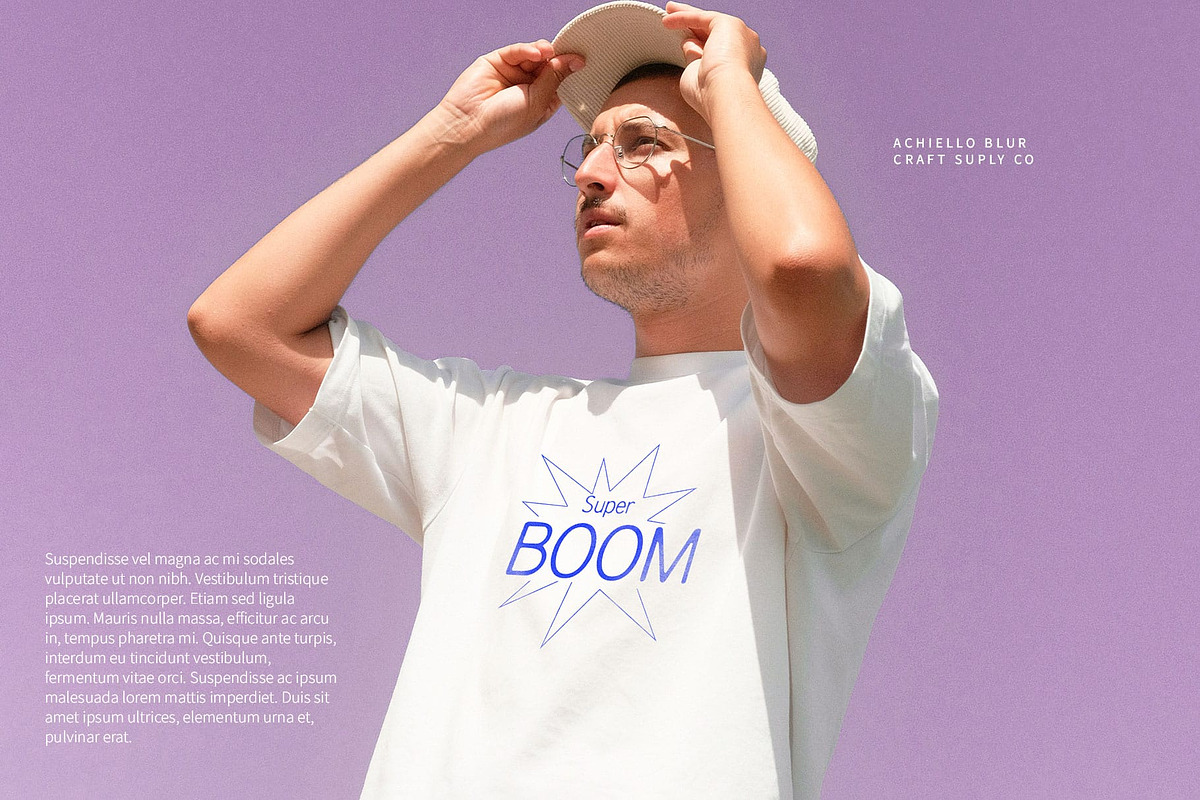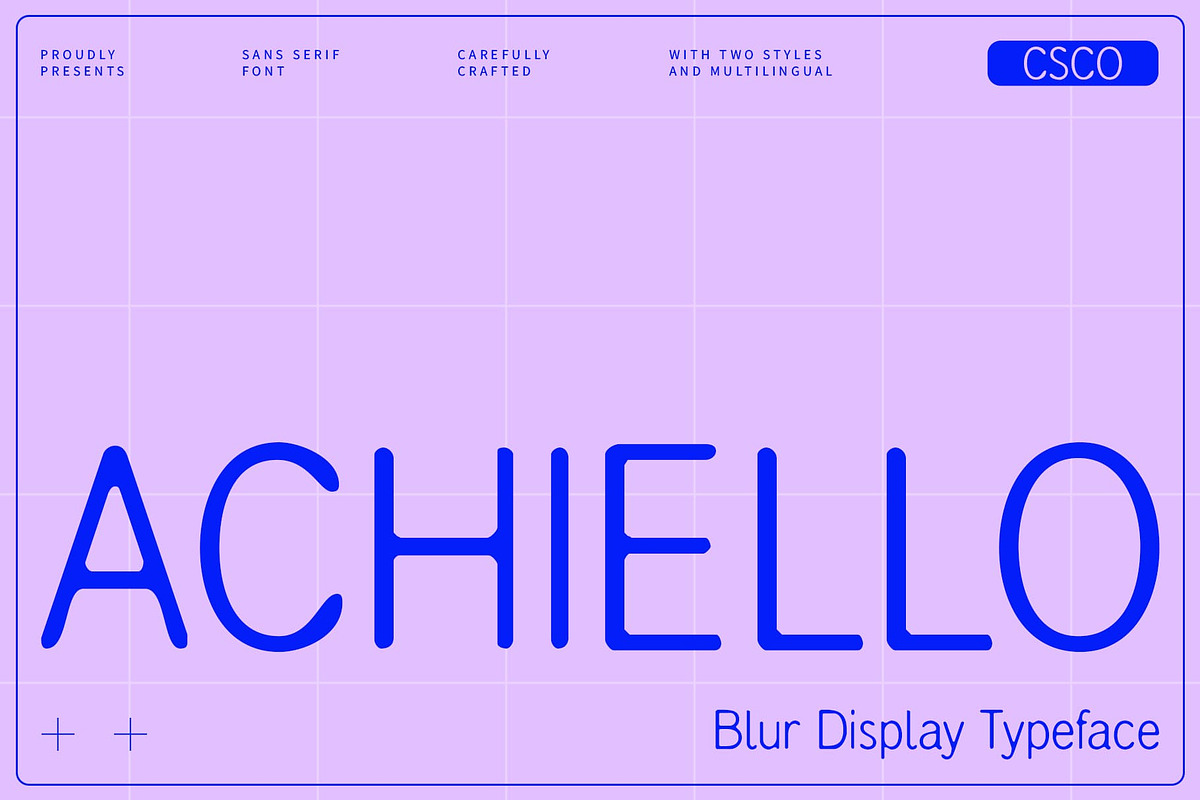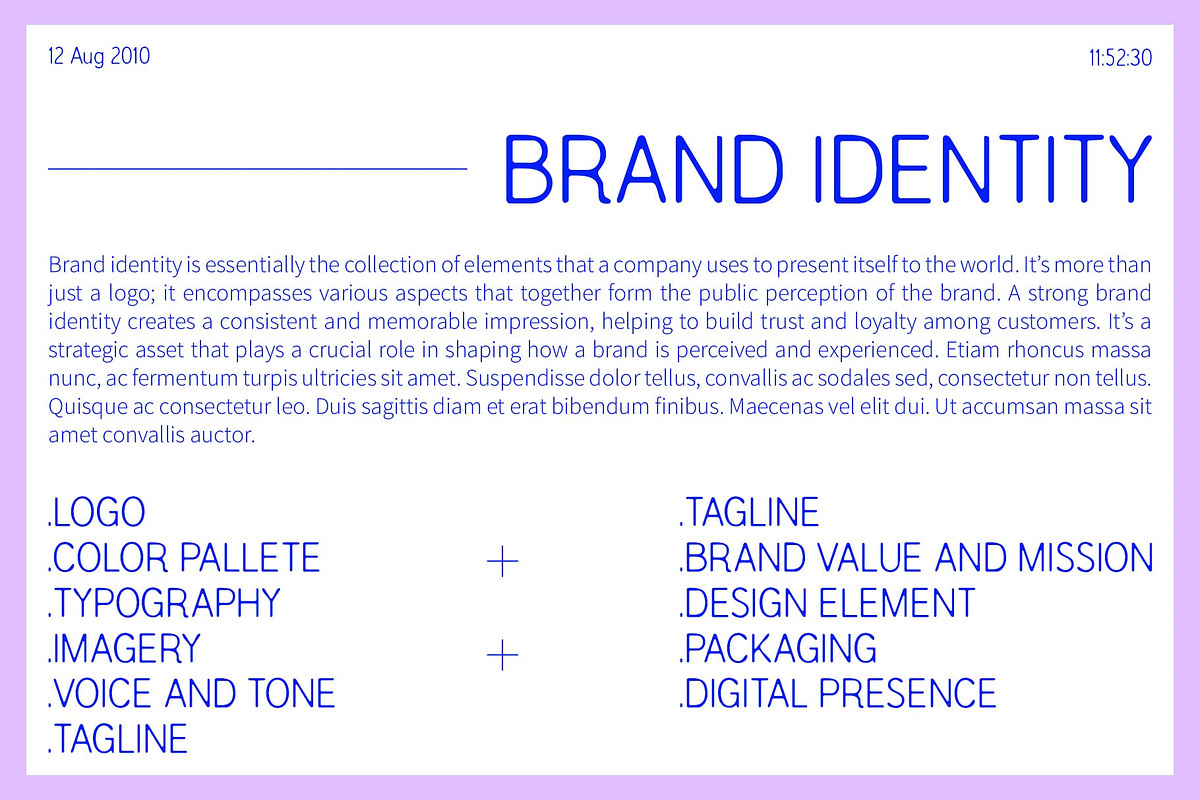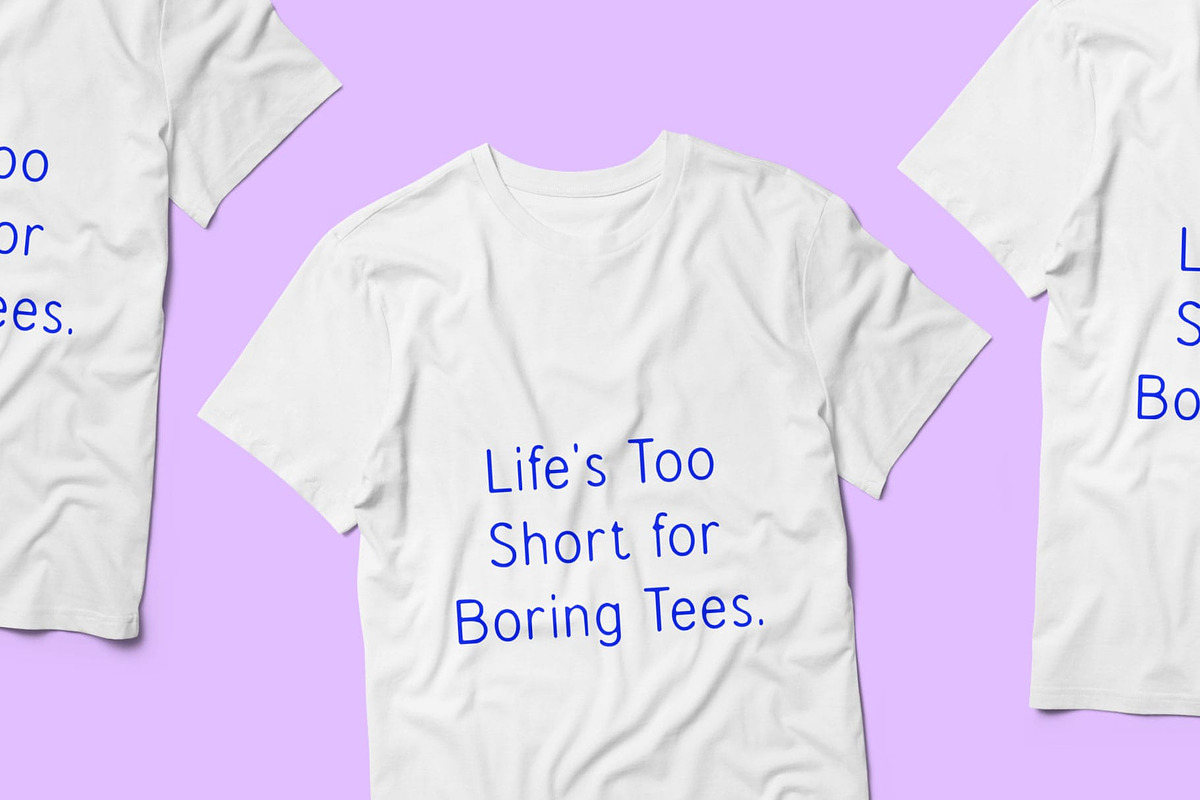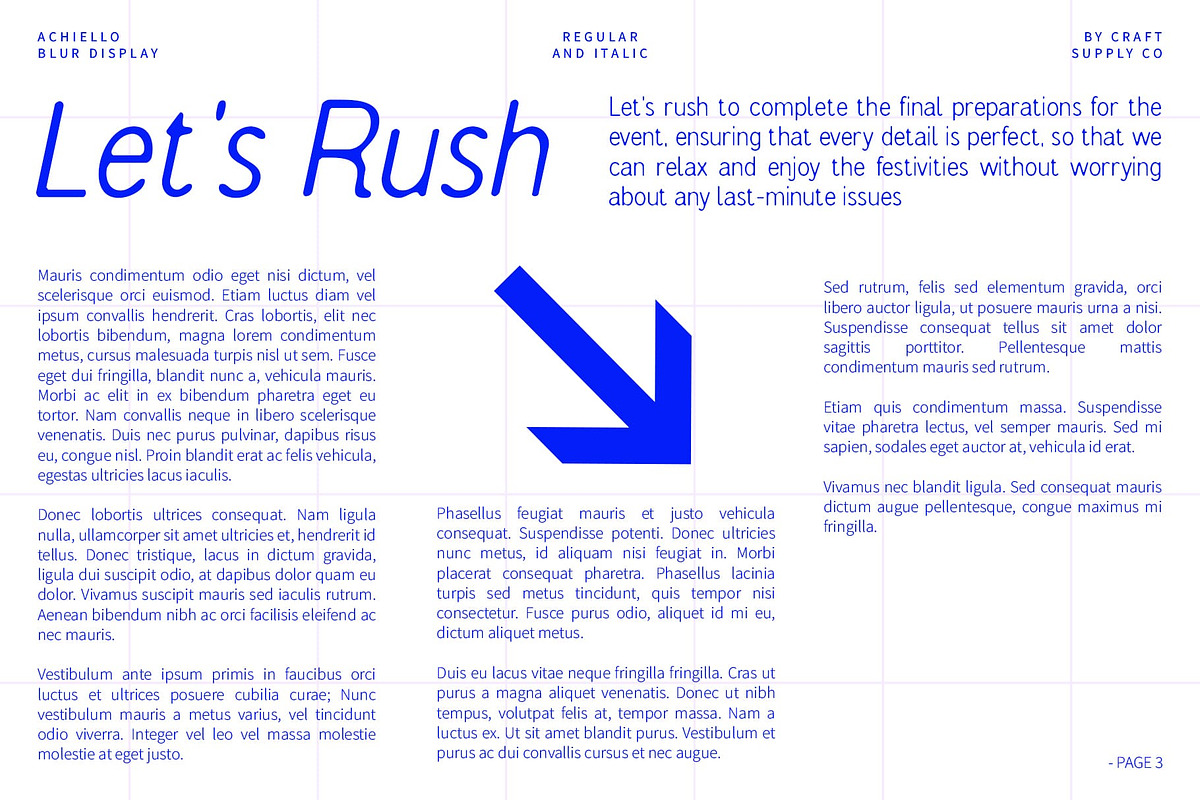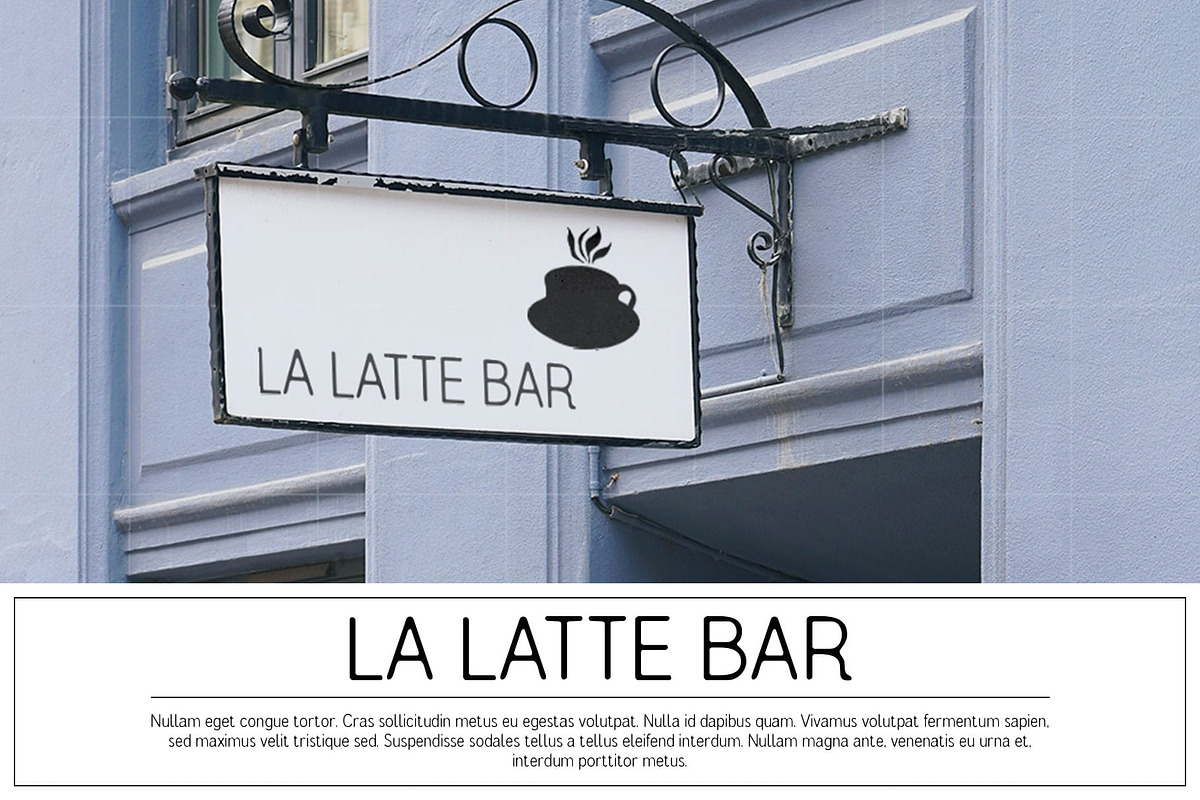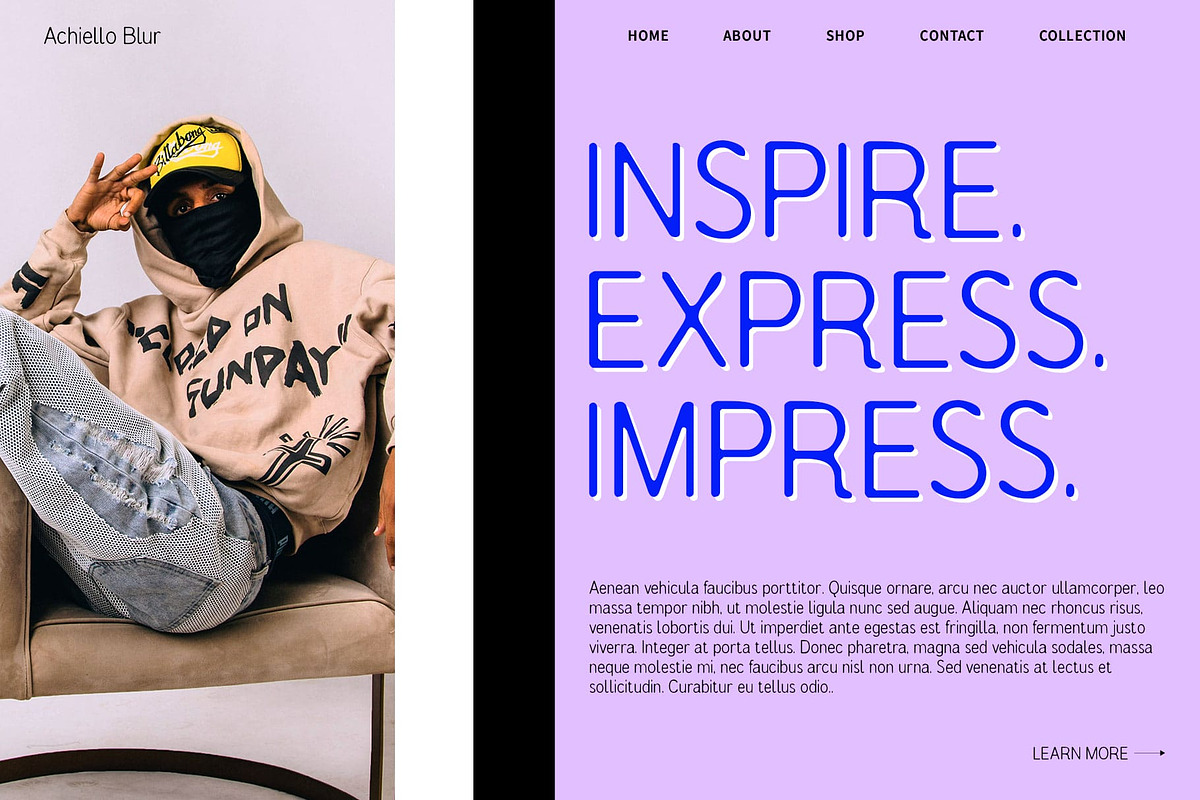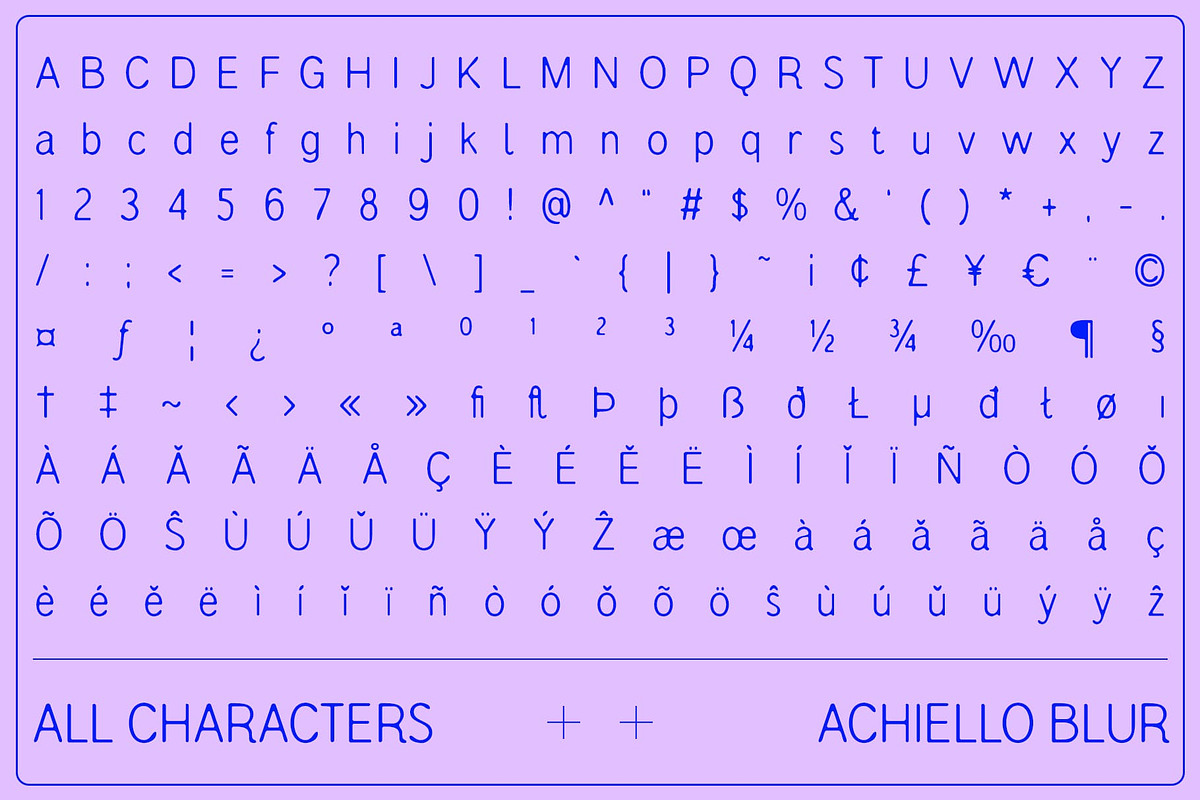
Achiello Blur
Achiello Blur Font: Humanist Sans-Serif with a Unique Touch
Humanist Style with Blur Effect Achiello Blur is a modern sans-serif font featuring a humanist style combined with a distinctive blur effect. This blend creates a warm, highly readable appearance while adding an artistic dimension to the design. The blur effect softens the edges, providing a subtle yet engaging visual depth.
Warm and Readable Design The humanist approach of Achiello Blur ensures that the font remains approachable and easy to read, making it perfect for a range of applications where clarity and warmth are key. Its blend of modern aesthetics with a soft blur makes it stand out in any design.
Ideal for Creative Branding and Editorial Work Achiello Blur excels in creative branding projects, editorial layouts, and digital designs. Its unique artistic touch and readability make it a great choice for designs that aim to balance visual appeal with functionality, adding a distinctive and warm character to any project.
Versatile for Modern Aesthetics Whether you’re working on branding, editorial content, or digital interfaces, Achiello Blur offers a versatile and stylish option. Its modern humanist style combined with the blur effect makes it ideal for projects that need a touch of warmth and uniqueness while maintaining a contemporary look.
- Achiello Blur Regular
- Achiello Blur Italic